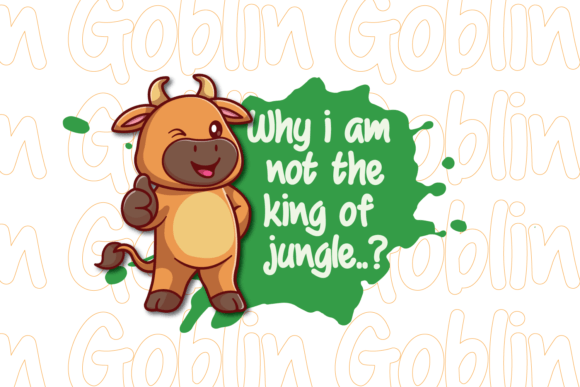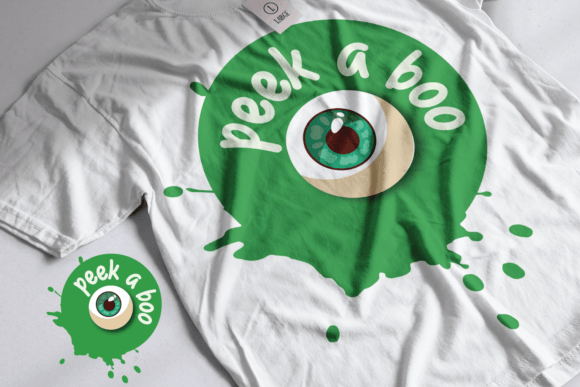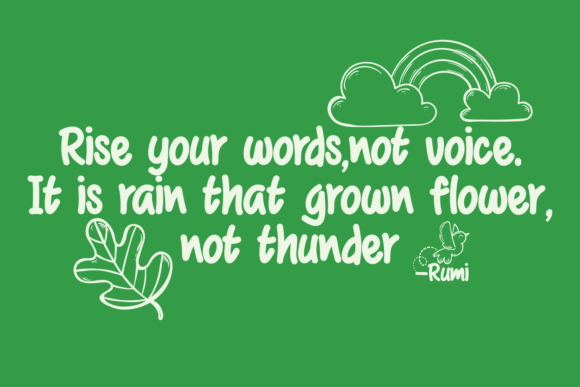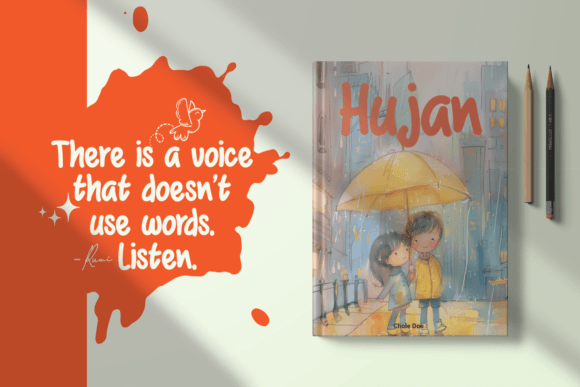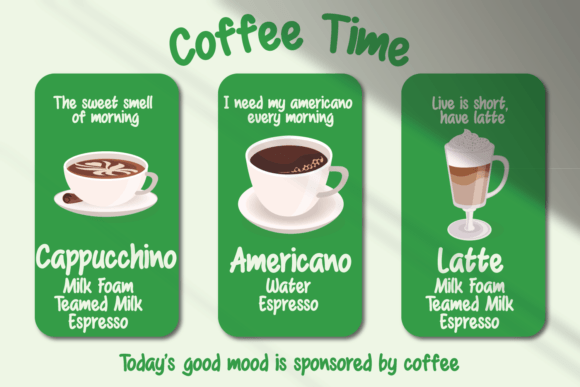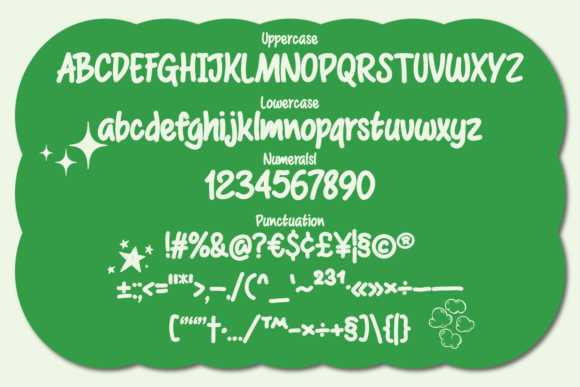
The Magical World of Goblin Font: A Designer’s Delight
I’ll never forget the time I was working on a children’s book illustration, and I just couldn’t find the right font to bring the story to life. The characters were playful, the scenes were whimsical, and I needed a font that would match the energy. That’s when I stumbled upon Goblin, a handwritten display font that has since become a staple in my design toolkit. In this article, I’ll share my love for Goblin, its features, and how to make the most of it in your designs.
A Personal Review: What I Love About Goblin
Goblin has been a game-changer for my designs, and here’s why:
- ✨ Authentic charm: Goblin brings a unique, handcrafted feel to any project, making it perfect for illustrations, titles, and headings.
- ✅ Versatility: This font works beautifully for both children’s projects and sophisticated designs, such as magazine titles or branding.
- 💫 Legibility: Despite its playful nature, Goblin remains highly legible, even at smaller sizes.
While Goblin is an amazing font, there are a few things to keep in mind:
- 🤔 Limited use in body text: Due to its display nature, Goblin might not be the best choice for long paragraphs or body text.
- ⚠️ Kerning adjustments: As with any font, you might need to make some manual kerning adjustments to ensure perfect spacing between letters.
- Experiment with OpenType features like ligatures and stylistic alternates to add more flair to your text.
- Although Word might not support all OpenType features, you can still enjoy the beautiful handwritten style of Goblin.
While the actual designer behind Goblin remains a mystery, it’s easy to imagine that they were inspired by mythical creatures and whimsical worlds. Perhaps they wanted to create a font that would transport readers to fantastical lands, or evoke a sense of playfulness and curiosity. Whatever the inspiration, Goblin has undoubtedly become a beloved font among designers.
| What type of projects is Goblin best suited for? | Goblin is perfect for illustrations, children’s books, magazine titles, branding, and any project that requires a playful, handwritten touch. |
| Is Goblin a difficult font to read? | No, despite its playful nature, Goblin remains highly legible, making it suitable for titles, headings, and short paragraphs. |
Goblin font has undoubtedly captured the hearts of many designers, and for good reason. Its unique charm, versatility, and legibility make it an excellent addition to any design project. Whether you’re working on a children’s book, a magazine title, or a branding project, Goblin is sure to bring life and personality to your designs.